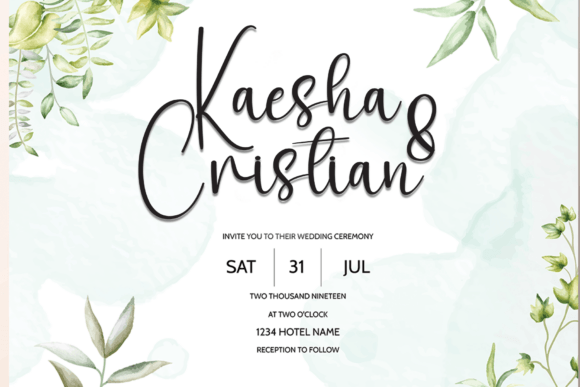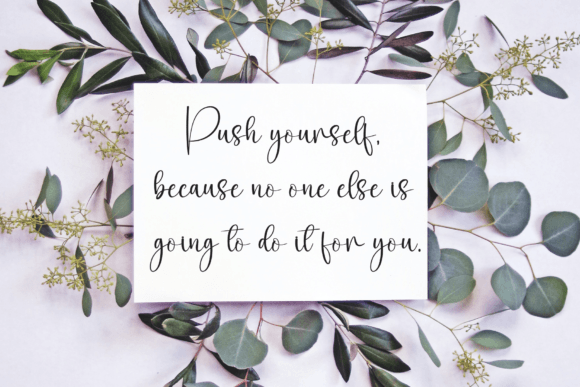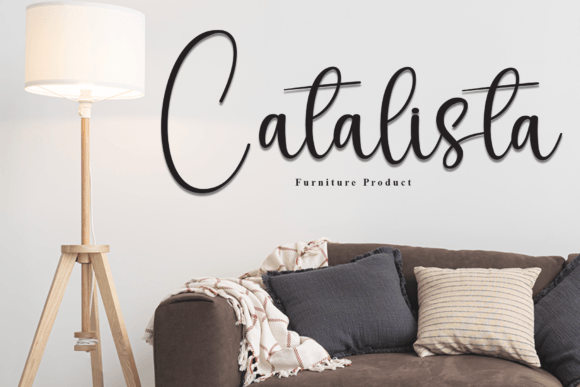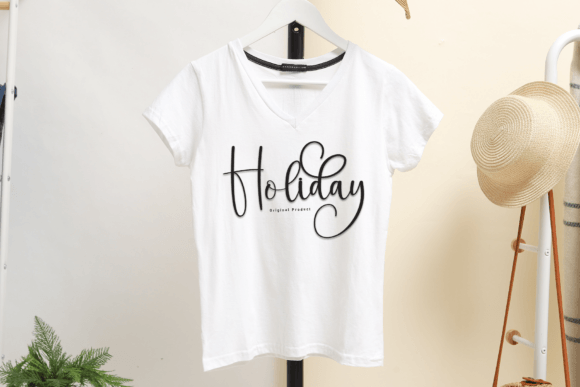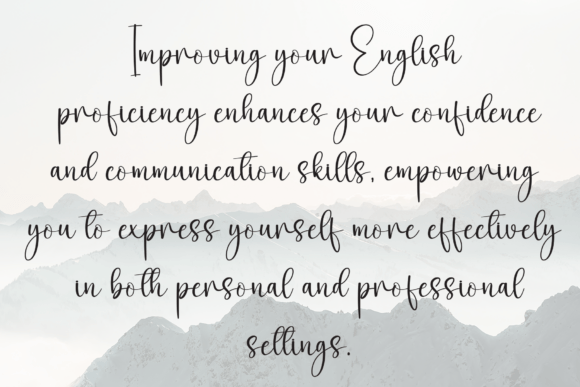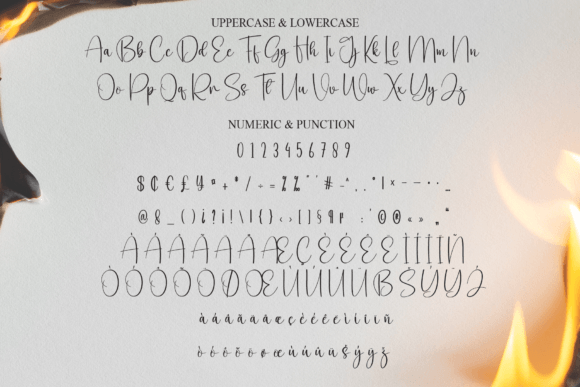
The Sweet Taste of Typography
Have you ever found yourself lost in the process of creating the perfect design, only to have it all come together at the stroke of midnight, surrounded by empty coffee cups and a satisfied sigh? That’s exactly what happened to me when I first laid eyes on the Baking Font. Its elegant, handwritten script is like a warm hug for your audience, inviting them to indulge in the sweetness of your message.
Baking Font is a versatile typeface that combines the sophistication of traditional calligraphy with the modern flair of contemporary design. Its flowing strokes and organic curves bring a personal touch to any project, from branding and invitations to social media and advertising. As a designer, you’ll appreciate the effortless charm and refined elegance that Baking Font adds to your work, making it a valuable addition to your typography toolkit.
Baking Font Key Features
- Font Family: Baking Font is a unique, hand-drawn font designed specifically for baking and food-related businesses.
- Font Size: Available in 4 different sizes: 18pt, 24pt, 36pt, and 48pt, making it suitable for various applications, from labels to signage.
- Resolution: Designed to be scalable, Baking Font looks great at resolutions of 72 dpi and 300 dpi, ensuring it remains clear and legible in various environments.
- Unique Characteristics: The font features playful, cursive lines and whimsical flourishes, making it perfect for adding a touch of personality to baking-related branding and marketing materials.
Baking Font Review
I recently had the chance to work with the Baking Font, and I must say it’s a mixed bag. Let’s dive into what works well and what doesn’t.
- ✨ Beautifully designed characters: The font has a lovely, hand-drawn feel that’s perfect for baking-themed projects.
- ✨ Versatile: The font comes in a range of weights and styles, making it suitable for various design applications.
- ✨ Easy to use: The font is well-behaved and easy to work with, even for those who aren’t font experts.
- ⚠️ Limited language support: The font only includes characters for the Latin alphabet, which may be a issue for designers working on international projects.
- ⚠️ Not ideal for small text: The font’s design makes it difficult to read at small sizes, which may be a problem for designs that require fine print.
- ⚠️ Some characters feel incomplete: A few characters, such as the ampersand, feel like they’re missing something, which can be distracting.
Overall, I think the Baking Font is a solid choice for designers working on baking-themed projects or those who want a unique, hand-drawn feel. However, its limitations may make it less suitable for more complex or international projects.
Baking Font: A Practical Application Guide
For optimal results, use Baking Font in conjunction with a clean and simple design aesthetic.
Avoid using Baking Font for large blocks of text; it’s best suited for headings and titles.
Baking Font is ideal for:
Food blogs and recipe websites
Restaurant and cafe menus
Food packaging and labeling
Alternatives to Baking Font
Great Vibes is a beautiful, cursive font perfect for adding a touch of elegance to your designs. It’s ideal for use in logos, quotes, and other text-based elements where a handwritten feel is desired. Great Vibes is more ornate and flowing than Baking Font, making it a great choice for designs that require a softer, more romantic aesthetic.
Pacifico is a modern, elegant serif font that’s perfect for use in headings and titles. It’s a great choice for designs that require a touch of sophistication and luxury. Pacifico is more refined and polished than Baking Font, making it a great choice for designs that require a high-end feel.